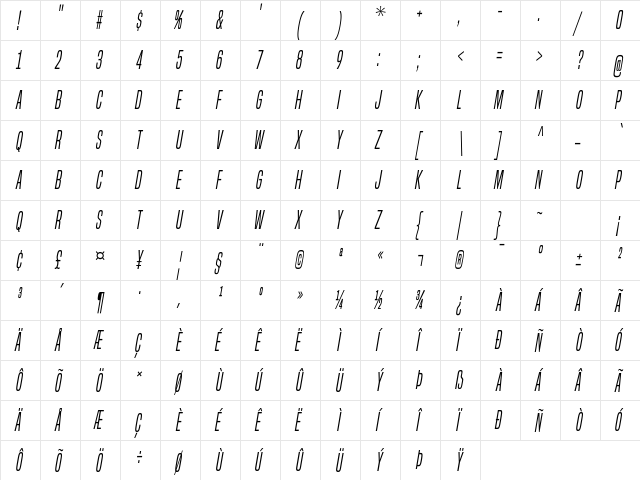
Built Titling Light Italic
Light Italic · Ray Larabie Ray Larabie ·
Design Context for Built Titling Typeface
Built Titling offers clean, dependable letterforms without strong stylistic allegiance, making it a practical choice for designers who need flexibility. Its italic angle brings a sense of urgency and motion to the letterforms. The delicate stroke weight brings airiness and refinement to layouts.
Pro Tip: Try Built Titling for annotation and caption copy alongside an upright companion — the contrast in angle creates a dynamic but ordered typographic system.